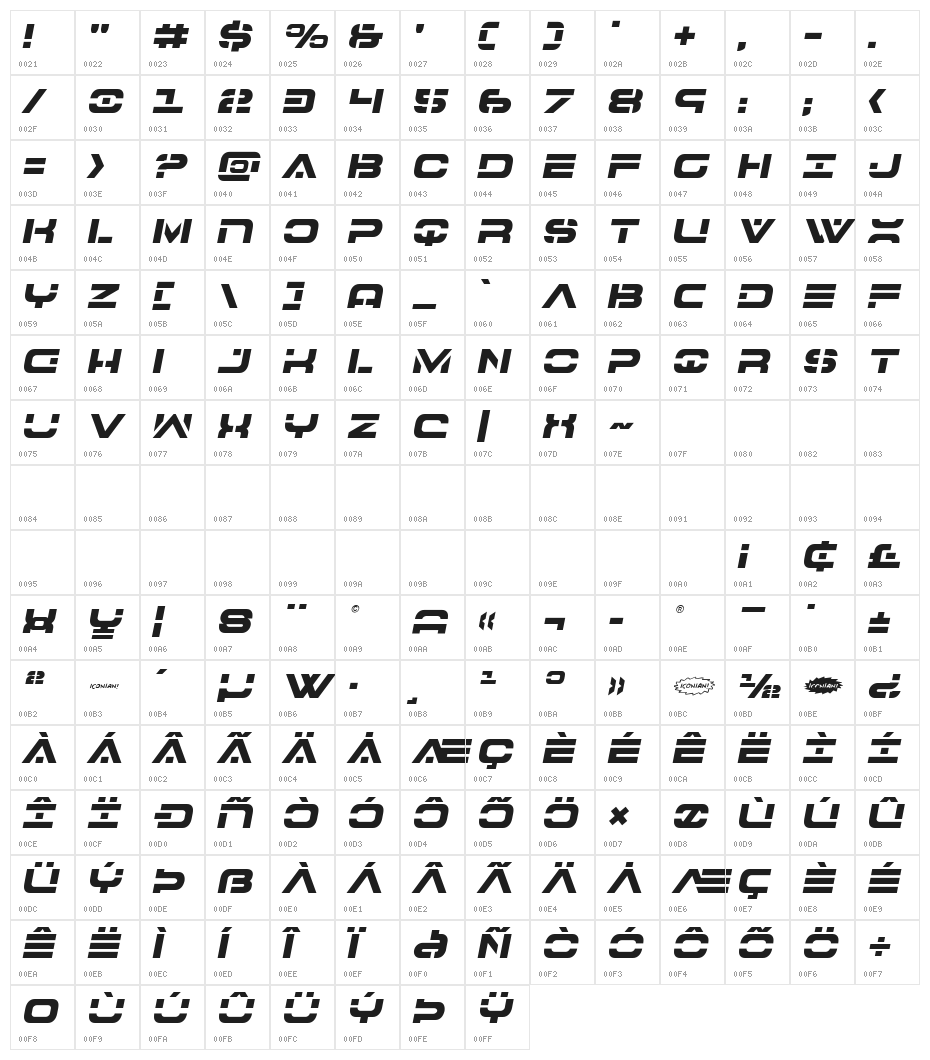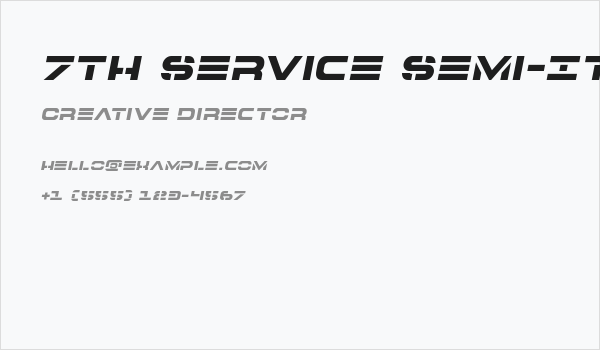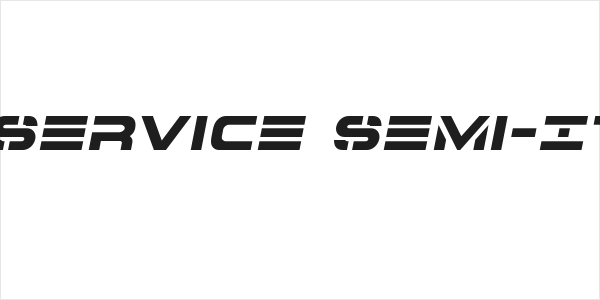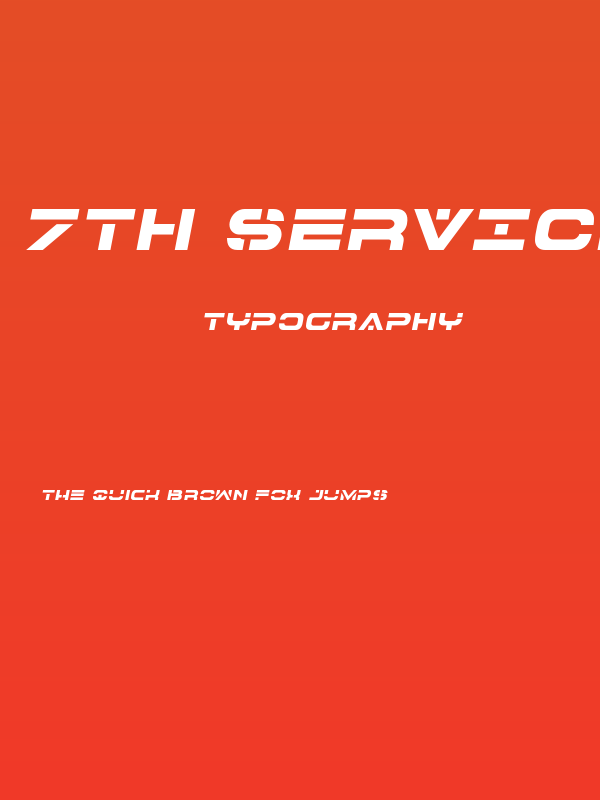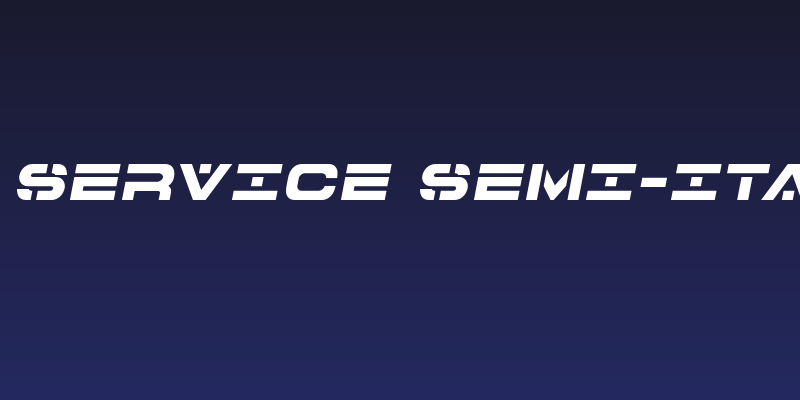
7th Service Semi-Italic Font
7th Service Semi-Italic Description
This font features a futuristic and geometric design with a semi-italic slant, giving it a dynamic and forward-moving appearance. The characters are constructed with bold, angular lines and distinct cutouts, creating a sense of movement and modernity. The uppercase letters are particularly striking, with a consistent use of sharp angles and unique shapes that make each character stand out. The numerals and special characters maintain the same stylistic approach, ensuring a cohesive look across all glyphs. This font's boldness and unique style make it ideal for projects that require a strong visual impact.
| Proposed Projects | Ideal for sci-fi themed designs, technology branding, video game titles, and modern posters. |